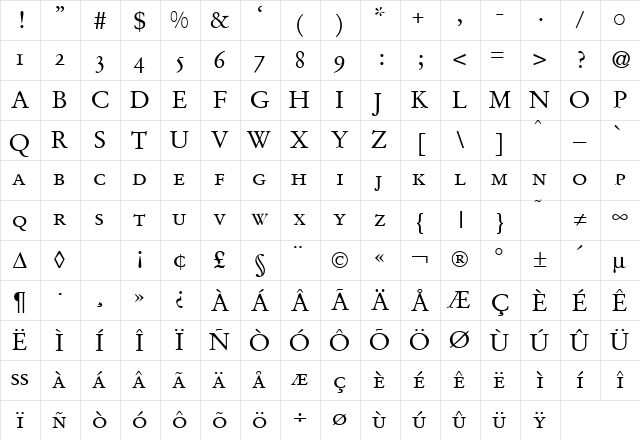
GaramondOriginalSmc DB Regular
Design Context for GaramondOriginalSmc DB
GaramondOriginalSmc DB is a composed and adaptable typeface that performs quietly and consistently across a wide range of design contexts.